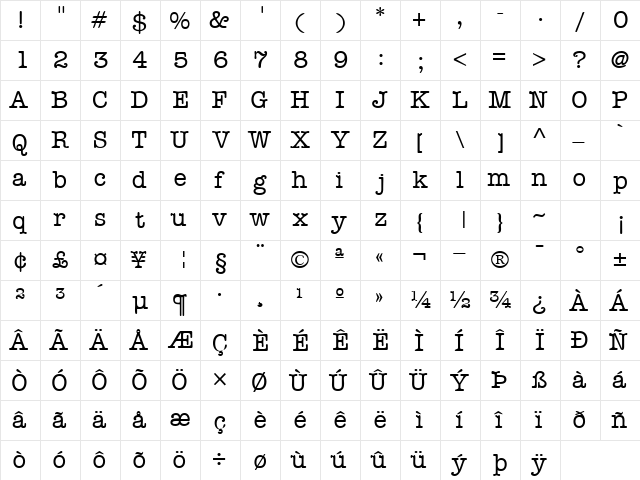
KeyboardSSK Regular Font Preview
KeyboardSSK Regular
KeyboardSSK Regular Font Details
Design Context for KeyboardSSK Typeface
KeyboardSSK is a composed and adaptable typeface that performs quietly and consistently across a wide range of design contexts.